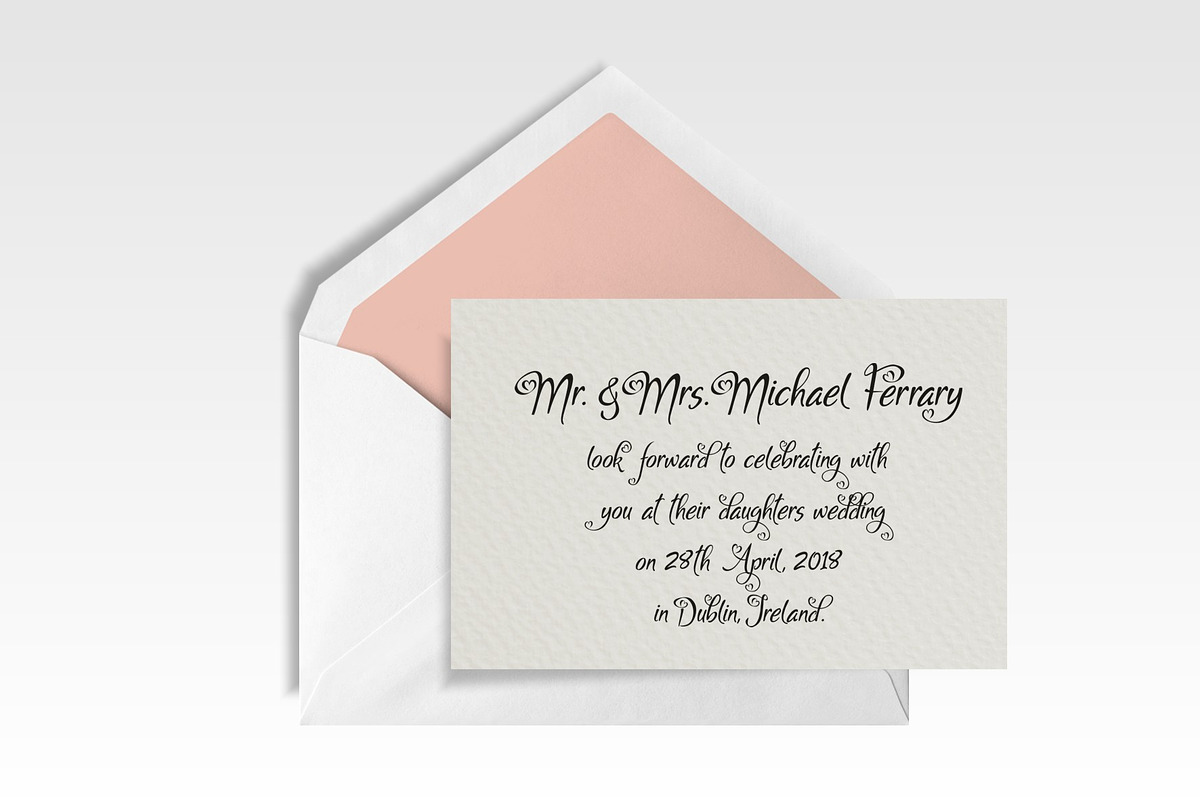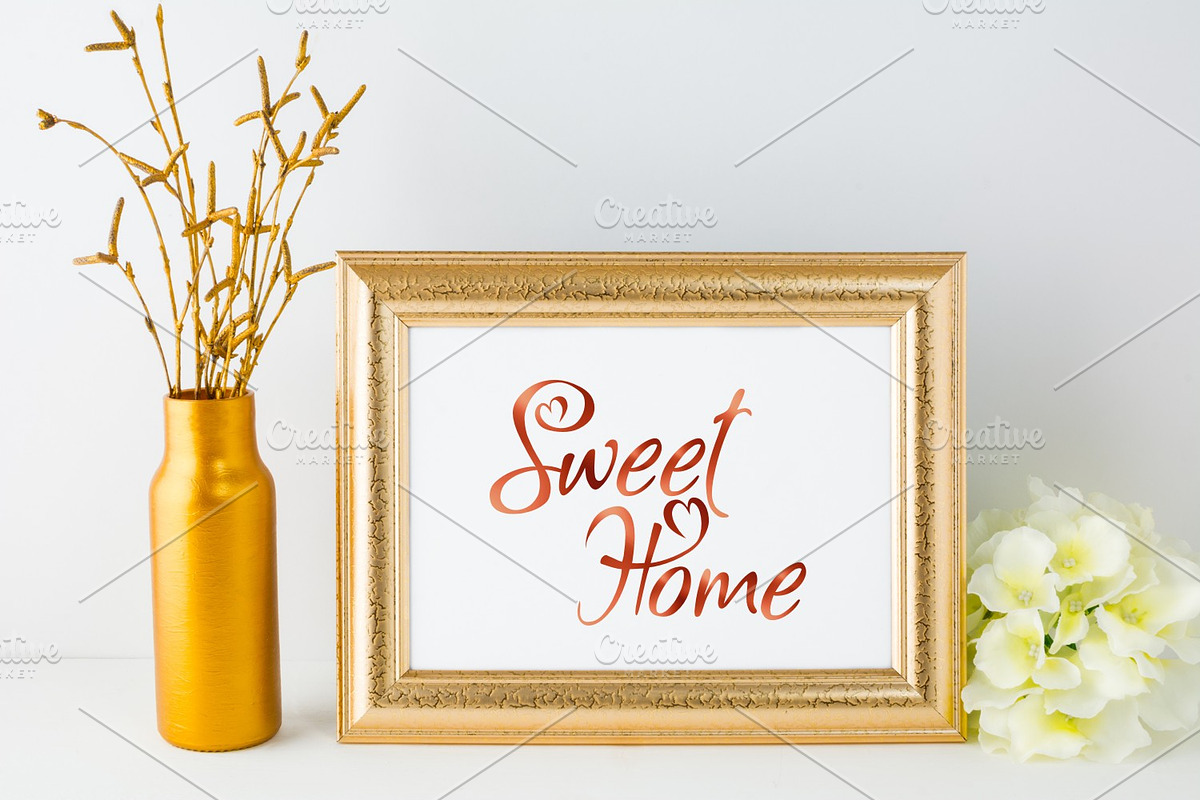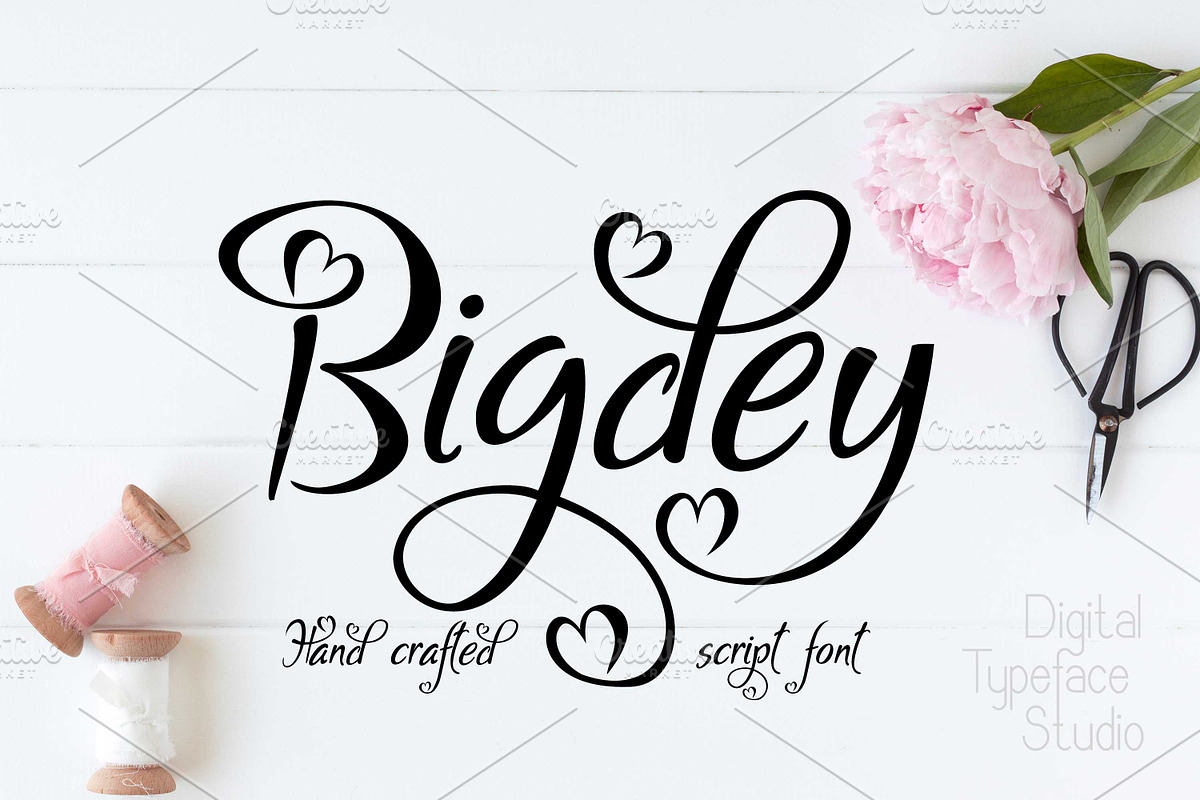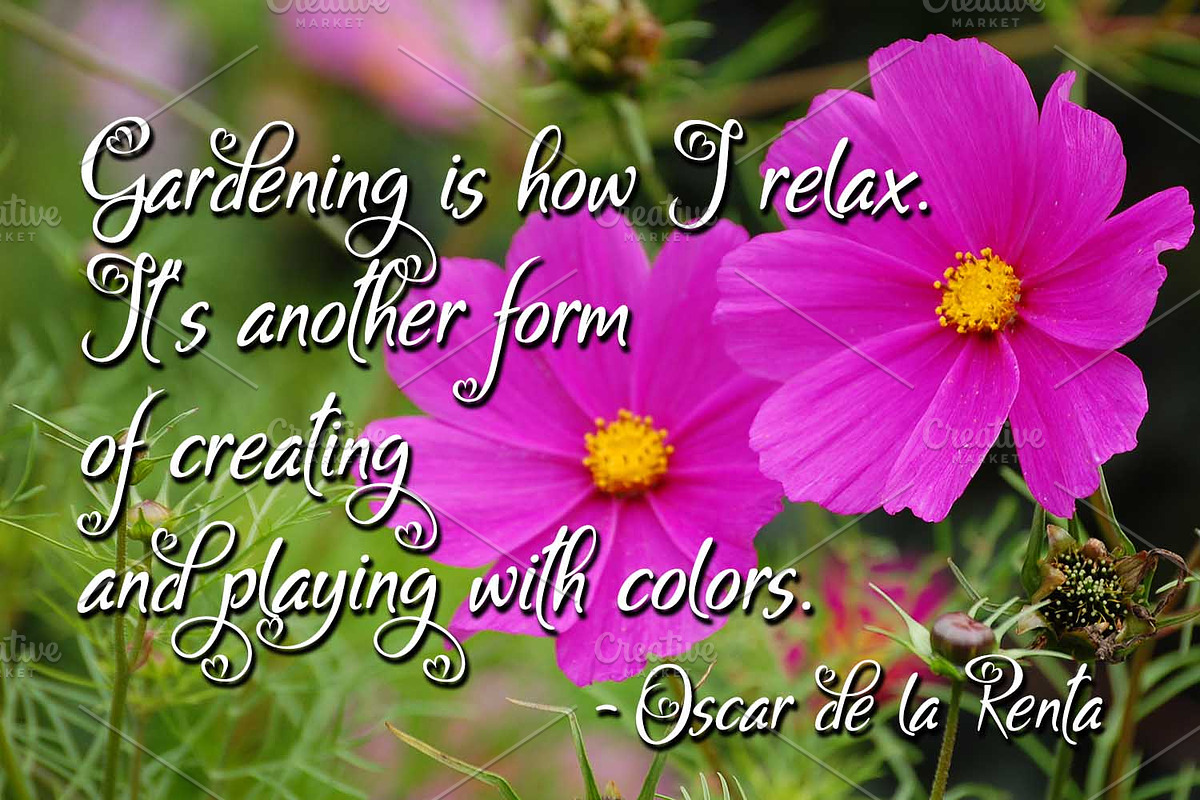
Bigdey
Bigdey is a romantic script with heart flourishes.
Why Bigdey is worth a look
Bigdey by Digital Typeface Studio fits naturally into Branding, posters, packaging, typography.